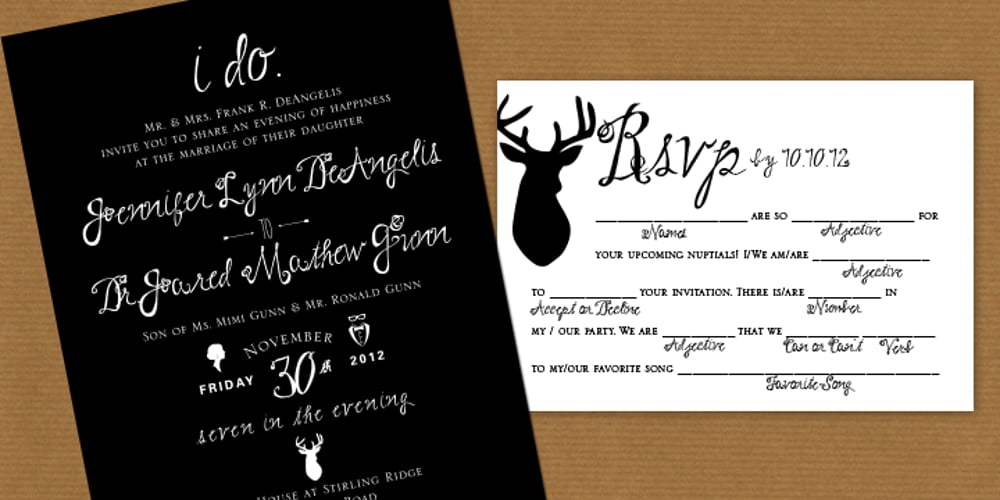
Wed Dings
Wed Dings font
Wed Dings Font Family was designed by Jennifer DeAngelis Gunn and published by Design23. Wed Dings contains 1 styles and family package options. This font will help the beginner designer create their own wedding invitations.